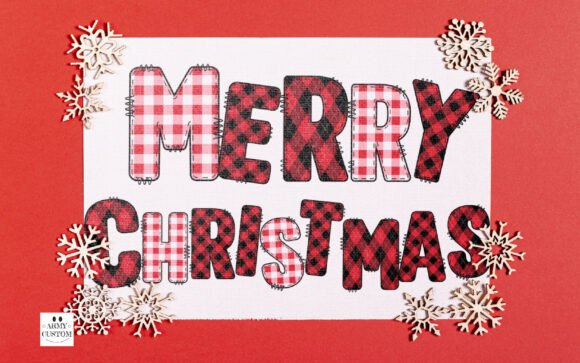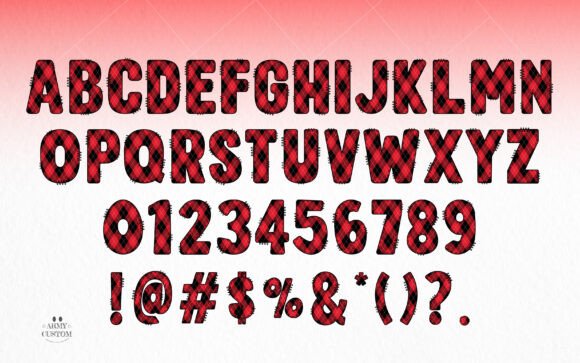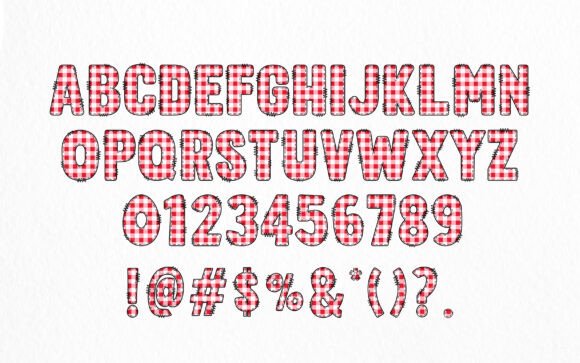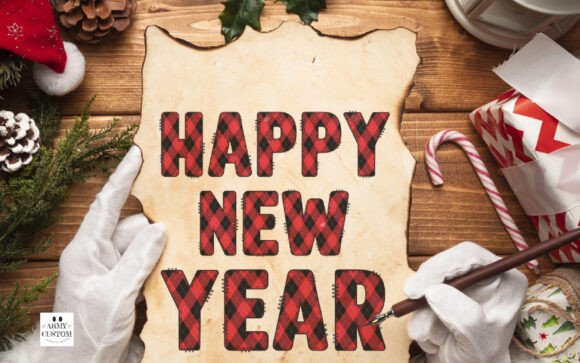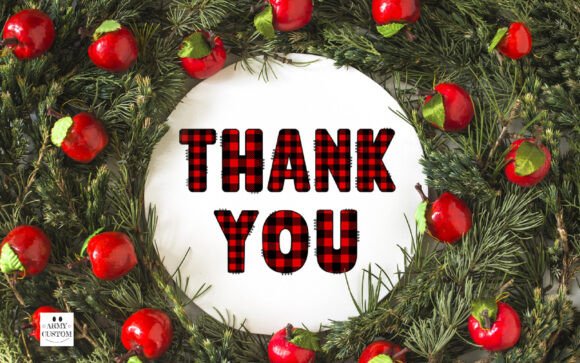
Introducing the Buffalo Plaid Bundle Font: A Festive Addition to Your Design Arsenal
As the holiday season approaches, designers and crafters are on the lookout for unique and festive typography to add a touch of merriment to their projects. Look no further than the Buffalo Plaid Bundle Font, a delightful typeface that embodies the warmth and charm of the season. This comprehensive font bundle is perfect for creating holiday-themed designs, from Christmas cards and decorations to festive merchandise and more.
A Seamless Blend of Traditional Charm and Modern Style
The Buffalo Plaid Bundle Font boasts a rich red plaid pattern that seamlessly weaves traditional charm with an engaging aesthetic. Its rustic appeal is perfectly balanced with modern style, making it an ideal choice for designers and crafters looking to add a quintessential holiday touch to their projects. Whether you’re creating designs for personal use or commercial purposes, this font is sure to bring a smile to your audience’s faces.
Key Features of the Buffalo Plaid Bundle Font
- Plaid Seamless Design: The font features a seamless plaid design that creates a cohesive and visually appealing look.
- Rich Red Color: The font’s rich red color is perfect for adding a pop of color to your designs.
Tips for Getting the Most Out of the Buffalo Plaid Bundle Font
- Experiment with Different Sizes and Colors: Play around with different font sizes and colors to find the perfect combination for your design.
- Pair with Other Festive Fonts: Combine the Buffalo Plaid Bundle Font with other festive fonts to create a unique and eye-catching design.